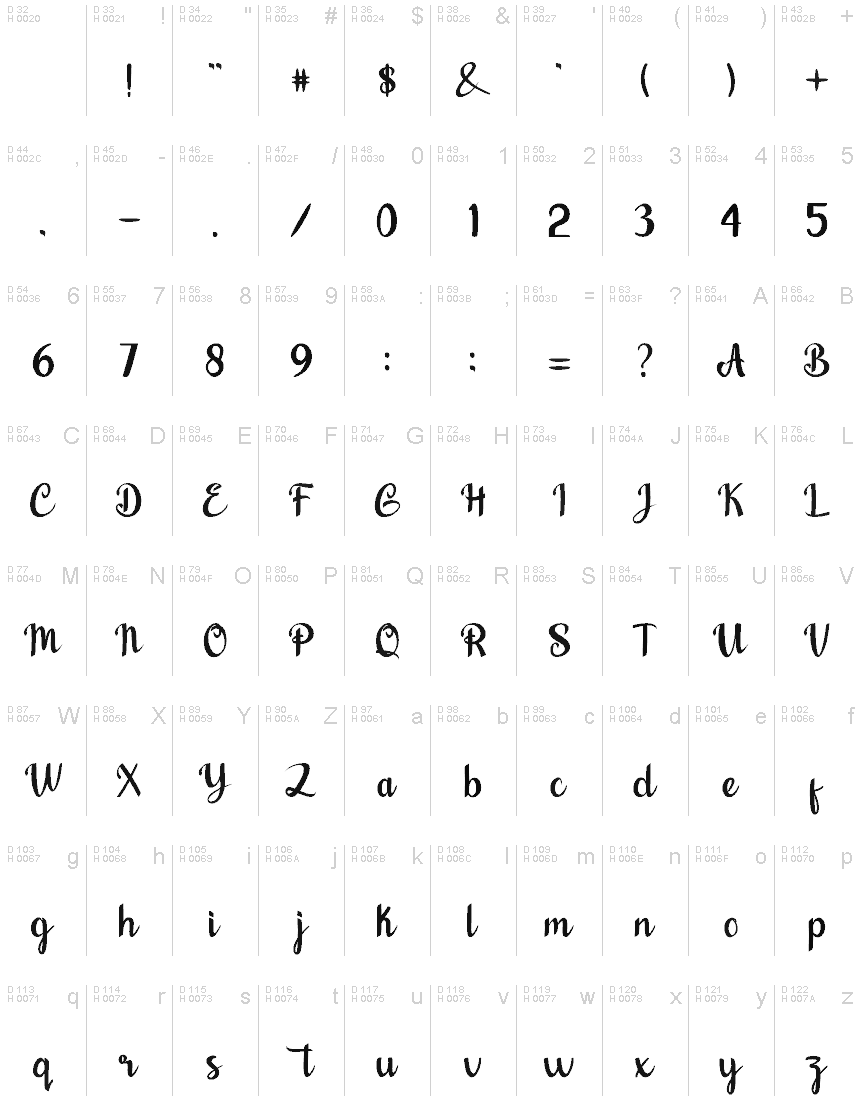
nalytha
Nalytha is a captivating calligraphic font that exudes elegance and sophistication. Designed by MJB Letters in 2019, this font masterfully blends traditional calligraphic flourishes with a modern, distinctive flair. The curving, fluid strokes and graceful ligatures create a sense of effortless beauty, making Nalytha an ideal choice for headers, titles, and decorative text.
Its versatility shines through, equally suited for high-end branding, wedding invitations, or editorial design. The distinctive character shapes and organic flow of the script lend a touch of personalized charm to any project, evoking a sense of timeless artistry. Nalytha's aesthetic appeal and adaptability make it a compelling option for designers seeking to elevate their work with a touch of refined calligraphic style.